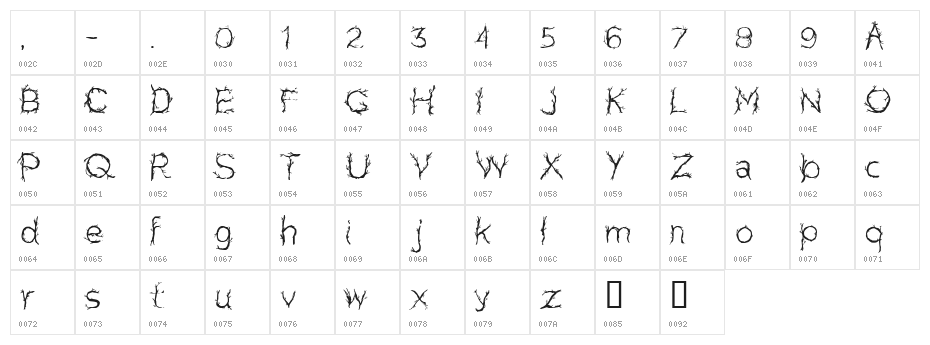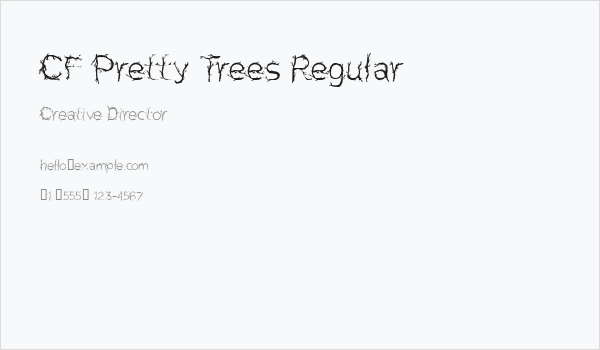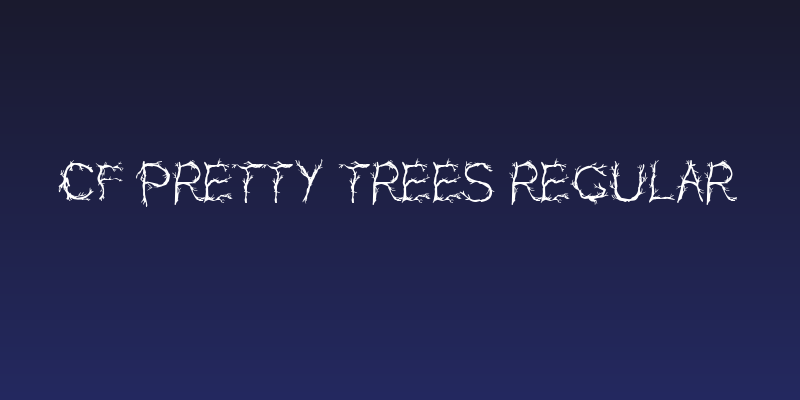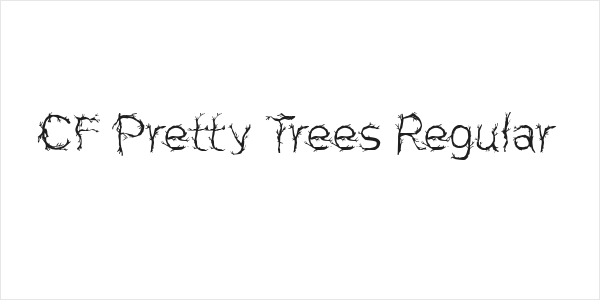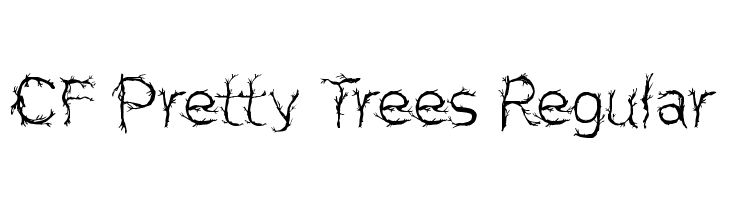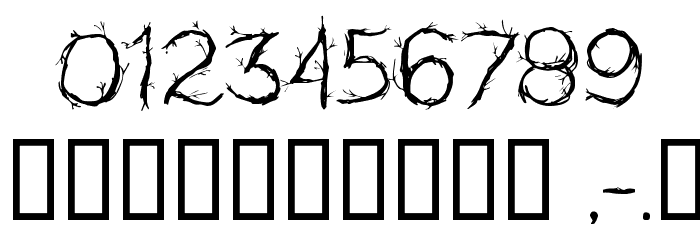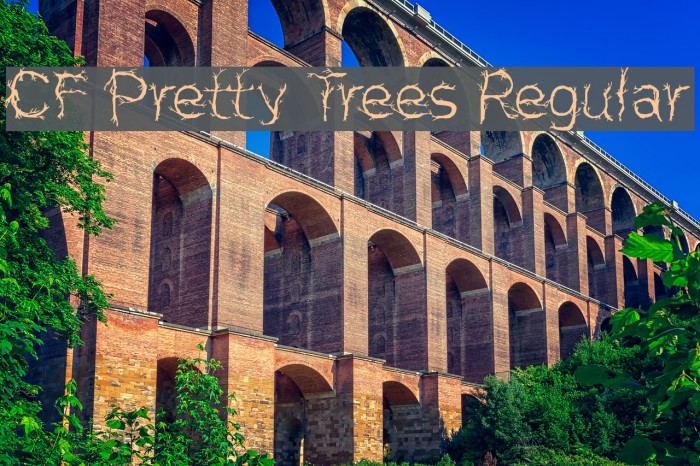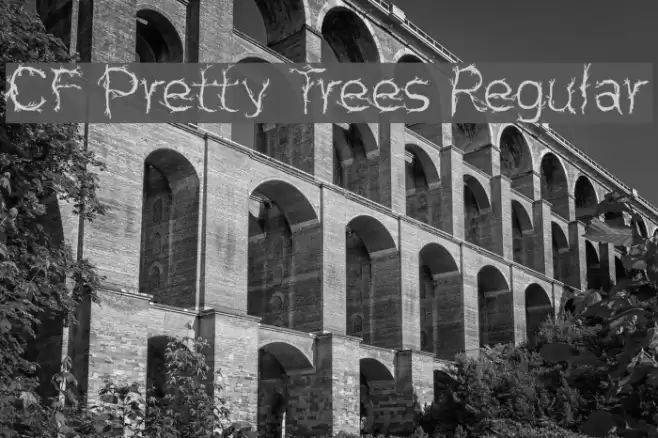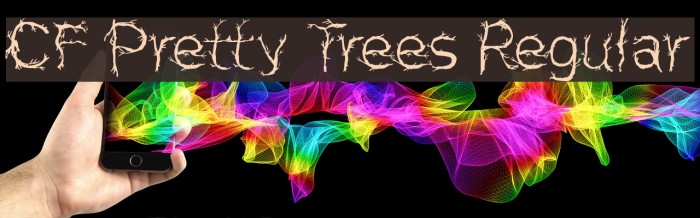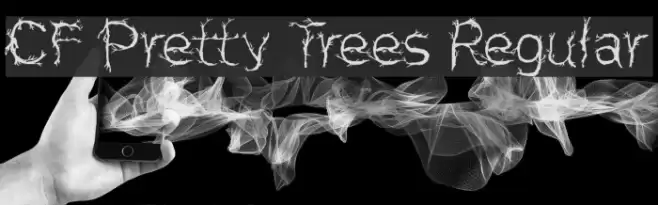
CF Pretty Trees Regular Font
CF Pretty Trees Regular Description
This font features a unique and intricate design, where each character is crafted to resemble tree branches. The letters have a natural, organic feel, with twisting and intertwining lines that mimic the appearance of twigs and branches. The overall look is both decorative and slightly eerie, making it ideal for projects that require a nature-inspired or gothic aesthetic. The font maintains legibility despite its complex design, with each letterform clearly distinguishable. The numbers and special characters follow the same thematic style, ensuring consistency across all text elements.
| Use Case | Logos, Posters, Headlines |
| Proposed Projects | Ideal for nature-themed designs, Halloween invitations, fantasy book covers, and environmental awareness posters. |